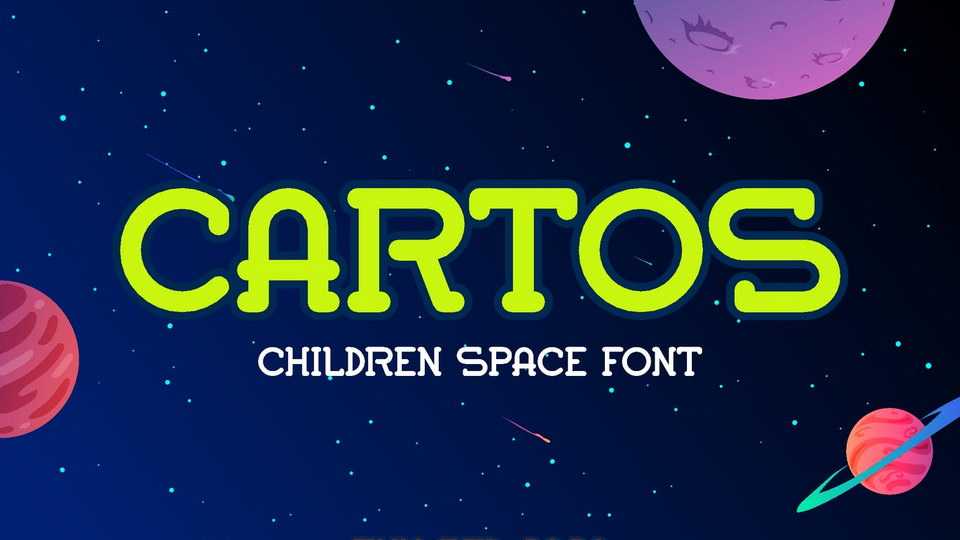
Download Cartos font, a display typeface taking your children audience fantasy to a whole new level. The round corner and geometric shape emphasize the space and technology feels, while keeping it friendly and approachable without making the kids dizzy and overwhelmed.